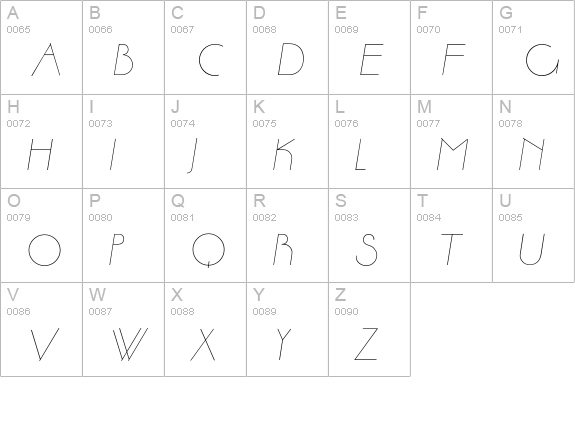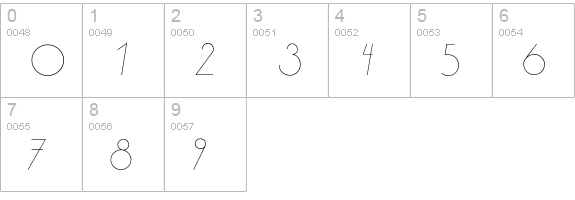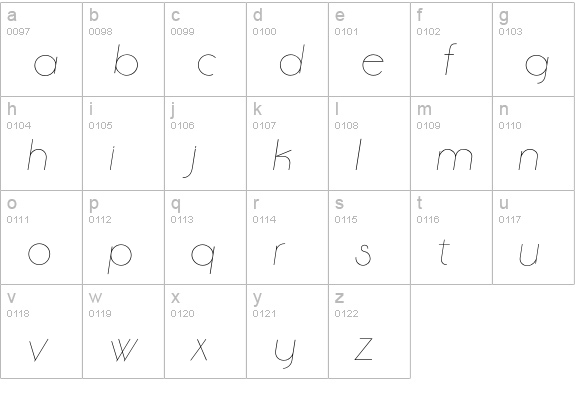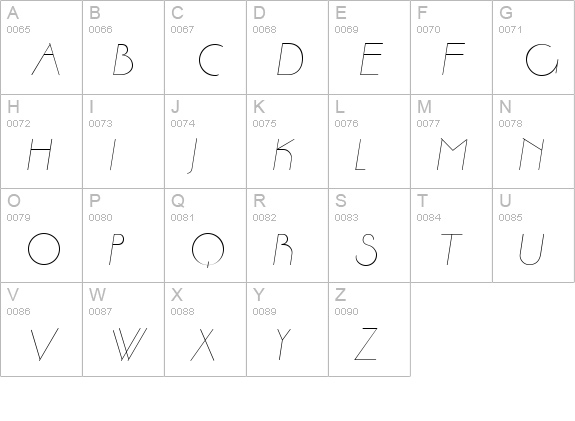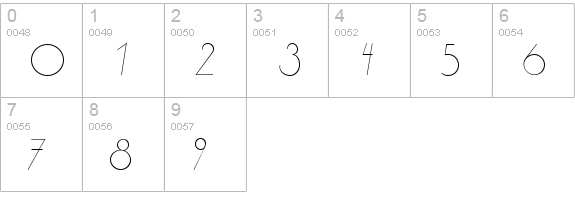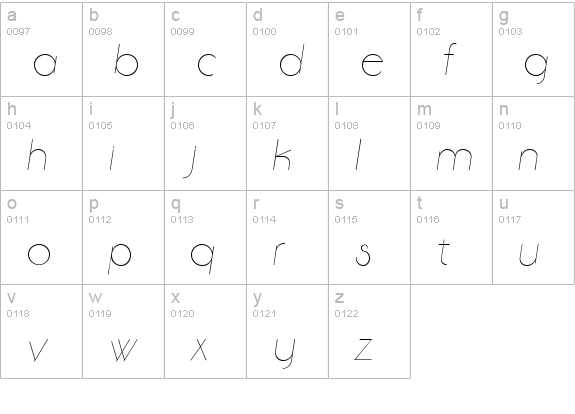
AaseLightItalic Font Details
Introducing AaseLightItalic, a stunning typeface designed to captivate and elevate your creative projects. This elegant font effortlessly combines modernity with a touch of sophistication, making it the perfect choice for a wide range of design applications. Its delicate and slanted letterforms add a subtle sense of movement and grace, while maintaining excellent legibility. AaseLightItalic is meticulously crafted with meticulous attention to detail, resulting in a font that is both visually appealing and highly versatile. Whether you're working on branding materials, editorial designs, invitations, or any other project requiring a touch of finesse, this font is sure to make a lasting impression. One of the most remarkable aspects of AaseLightItalic is that it is available for free download exclusively at FontsMarket.com. This means that you can access this incredible font without any cost, making it an invaluable resource for designers, students, and enthusiasts alike. With just a few clicks, you can enhance your projects with the utmost elegance and professionalism. With its extensive character set, AaseLightItalic supports multiple languages, ensuring that you can effectively communicate your message to audiences across the globe. Additionally, it includes various punctuation marks and special characters, allowing you to add the perfect finishing touches to your designs. Unleash your creativity and elevate your design game with AaseLightItalic. Download this exceptional font today from FontsMarket.com and experience the seamless blend of style and functionality that this typeface offers. Make a statement that truly stands out, and let AaseLightItalic be the key to unlocking your design potential.